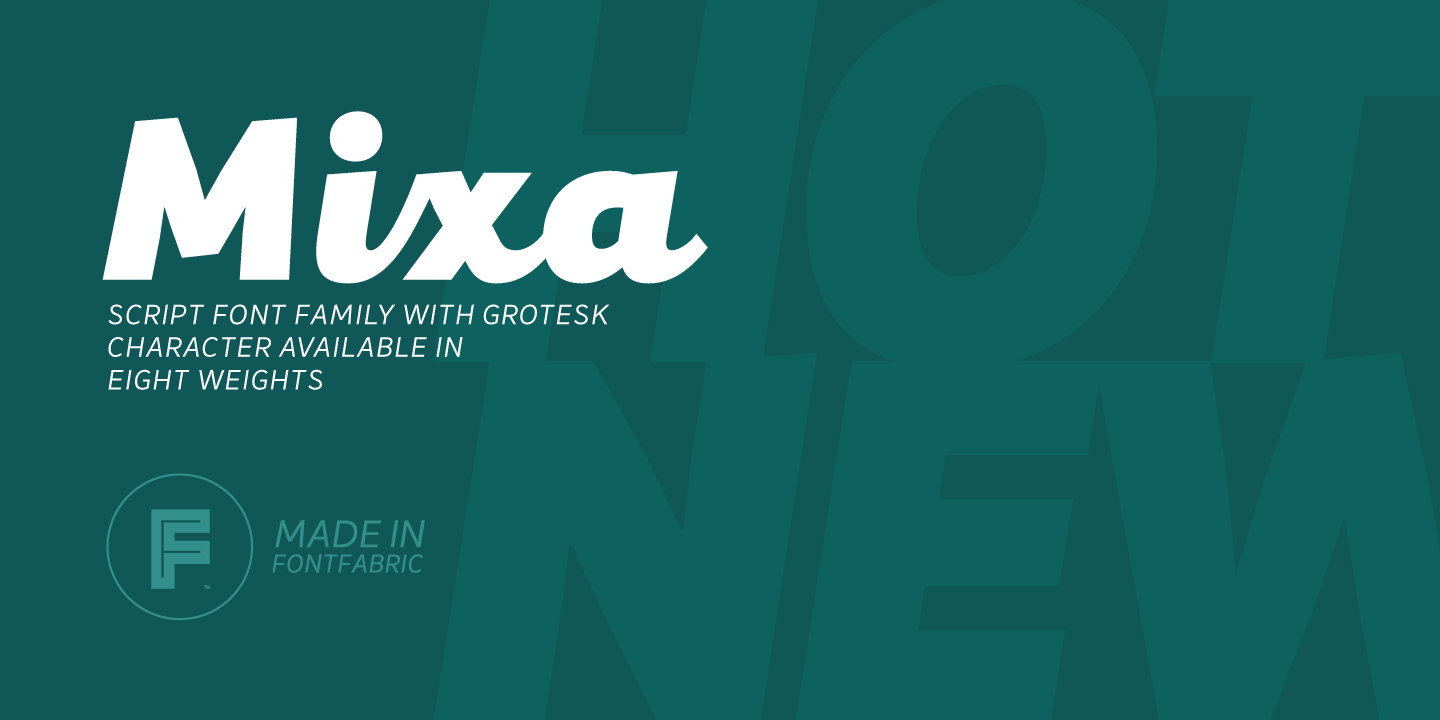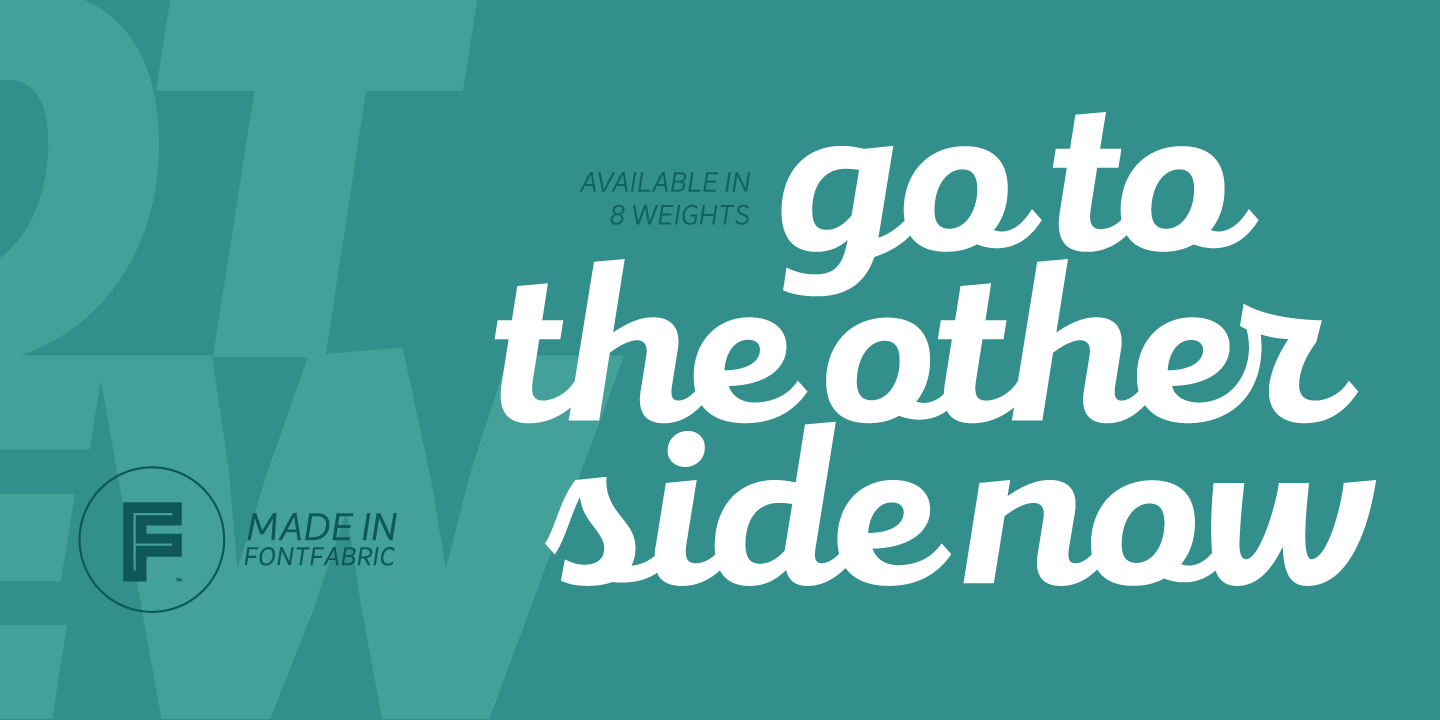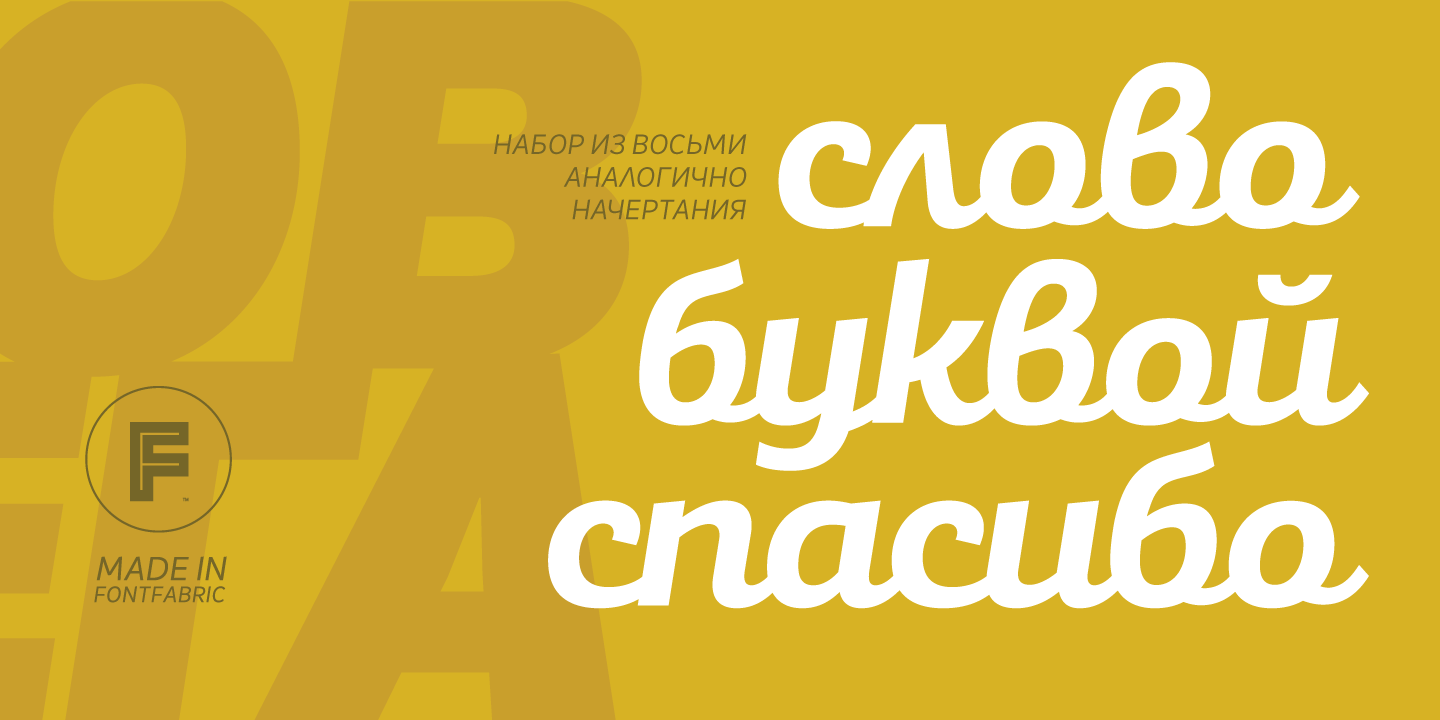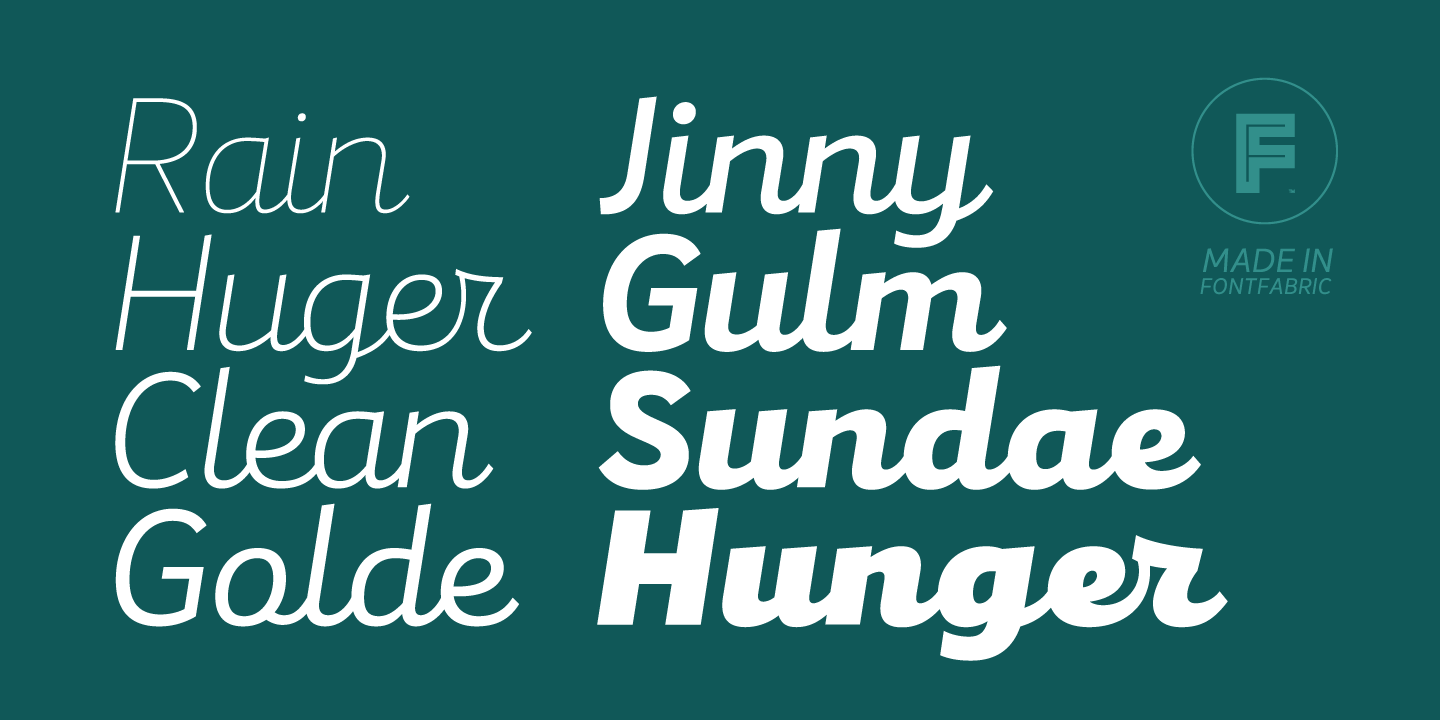
About the Mixa Font
About Mixa Font Family Neo-grotesque Sans Serif mixed with the classical handwritten Script in slanted geometric shapes – that’s the way Mixa was born, Those two faces of the new font family makes it as much as unique and recognizable, When you’re using the Capitals only nobody will suspect that there is script hidden in the lowercase, That’s why all eight weights can be combined perfectly with wide list of classical Sans Serif, Slab Serif and Serif typefaces
The font offers wide range of ligatures to ensure smooth readability and beautiful letter combinations, The decorative swashes in some of the Capitals presented as a stylistic sets give unique touch in any design, Mixa has it’s own style and personality, but without lacking of legibility